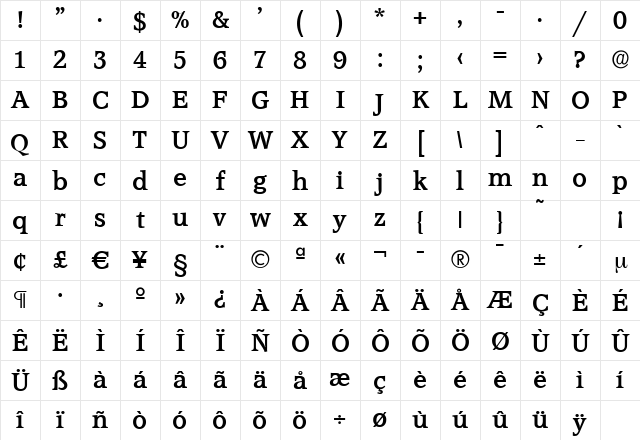
Complete MichaelBecker Bold glyph index. Displaying only characters natively supported by MichaelBecker Bold font.
MichaelBecker is a composed and adaptable typeface that performs quietly and consistently across a wide range of design contexts. Its bold stroke weight gives it real presence on the page.